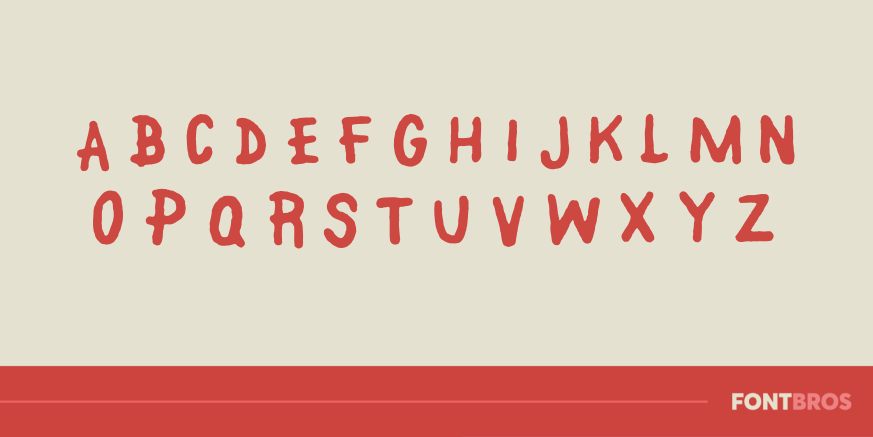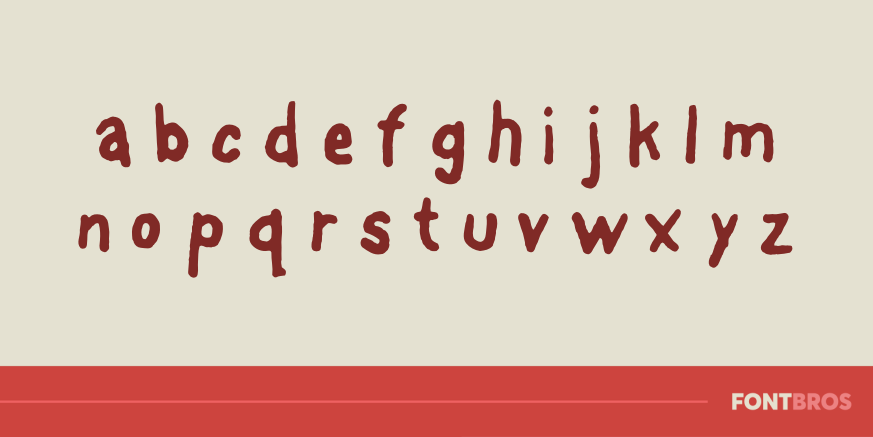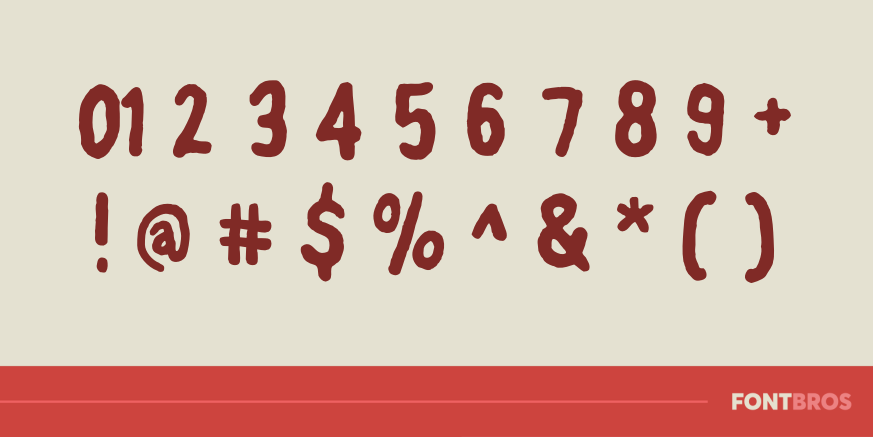
Font-On-A-Stick
Font Family by Font Diner
Font-On-A-Stick is a handmade marker-style display font with a fun, wacky personality. Its casual lettering and hand-drawn feel give layouts an upbeat, offbeat look that feels spontaneous rather than polished.
With its playful character, this single-style design is a natural fit for posters, informal branding, social graphics, packaging, crafts, and other display work that benefits from a more personal touch. It works especially well when you want type to feel friendly, creative, and a little unconventional.
Created by Font Diner, this font family includes 1 font style. If you’re looking for handwritten letterforms with a marker-made attitude, this one brings plenty of charm without feeling overly busy.